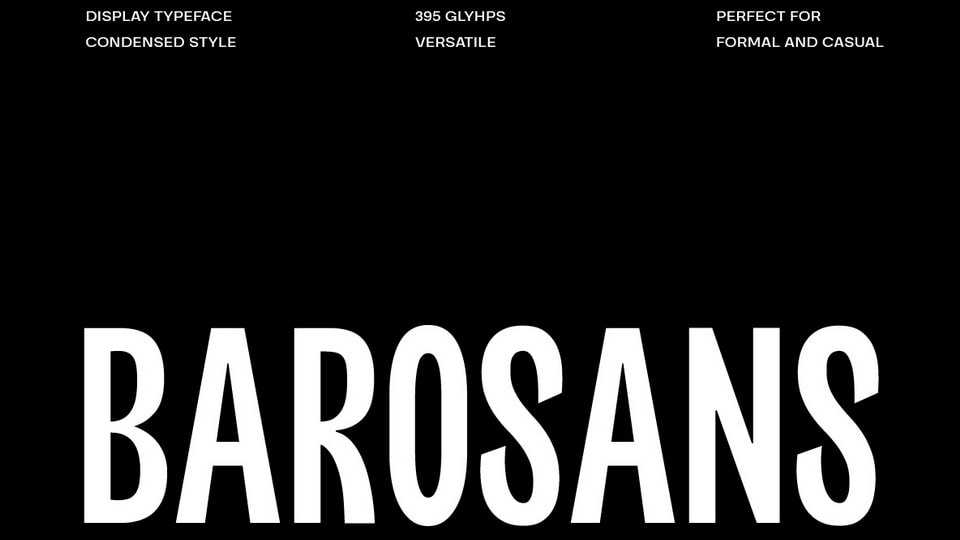
Download Barosans Condensed font, a modern display typeface that has a simple and elegant design. This font has a slender, grave typeface that evokes a modern and professional impression.
Designer: Yukita Creative